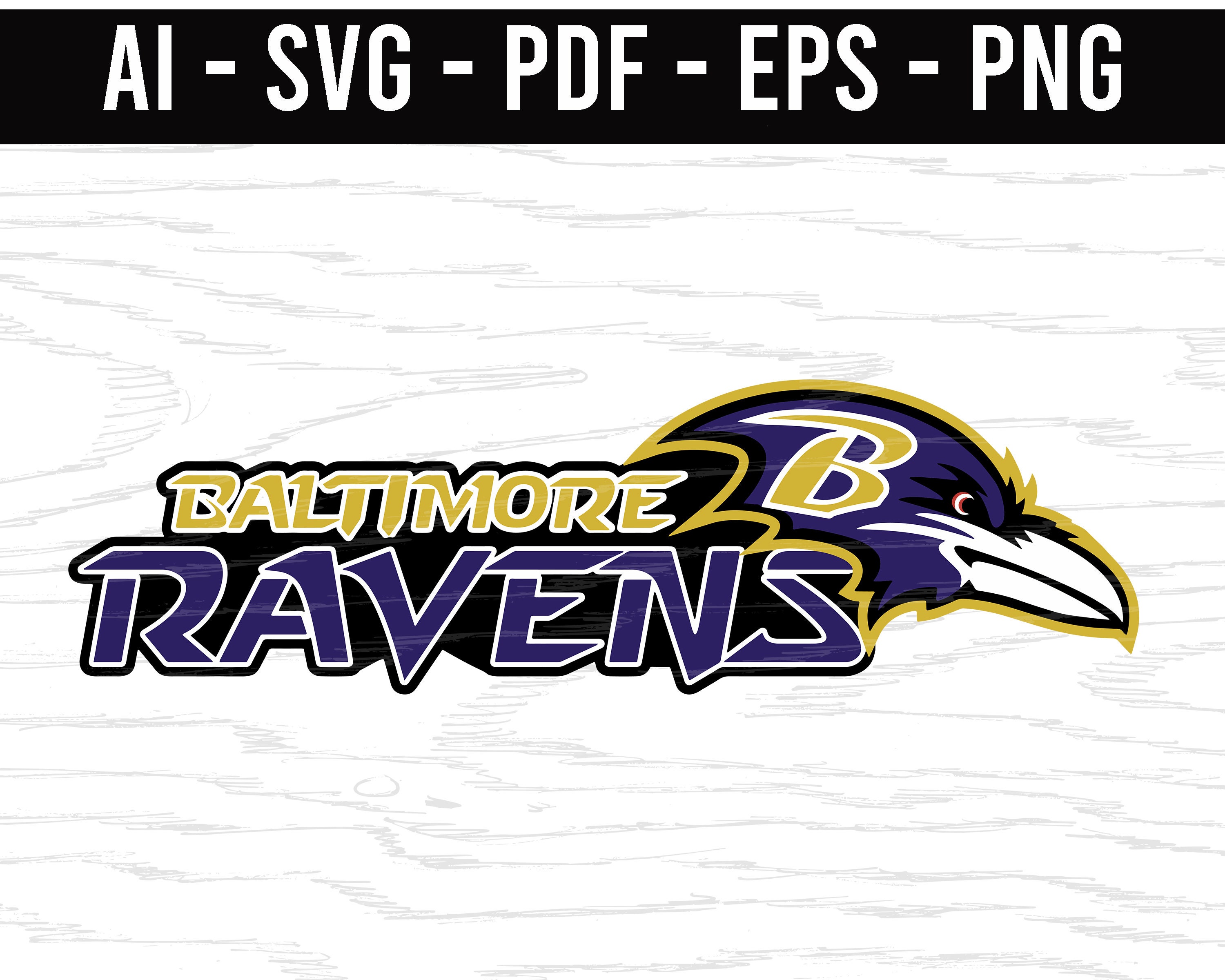
Baltimore Ravens Font
Baltimore Ravens Font - Letterforms look like they are derived from matrix ii wide, made bolder and with a unique serif pasted on the top. ️ customize your own preview on ffonts.net to make. View sample text, character map, user rating. Every font is free to download! The nfl ravens font contains 66 beautifully designed characters. Click to find the best 19 free fonts in the nfl style. It screams attitude and character. Dec 05, 2016 at 10:54. The typography in the logo isn’t just letters. Download nfl ravens regular for free.
It screams attitude and character. View sample text, character map, user rating. The nfl ravens font contains 66 beautifully designed characters. Letterforms look like they are derived from matrix ii wide, made bolder and with a unique serif pasted on the top. Web looking for nfl fonts? Web winco bold italic commercial fonts. The typography in the logo isn’t just letters. Every font is free to download! Dec 05, 2016 at 10:54. Download nfl ravens regular for free.
The typography in the logo isn’t just letters. Web looking for nfl fonts? Download nfl ravens regular for free. 1 style uncategorized 11 downloads. Web winco bold italic commercial fonts. Letterforms look like they are derived from matrix ii wide, made bolder and with a unique serif pasted on the top. The nfl ravens font contains 66 beautifully designed characters. It screams attitude and character. Web the font used in the baltimore ravens logo. Every font is free to download!
1 style uncategorized 11 downloads. It screams attitude and character. Dec 05, 2016 at 10:54. View sample text, character map, user rating. Web looking for nfl fonts?
View sample text, character map, user rating. 1 style uncategorized 11 downloads. The typography in the logo isn’t just letters. It screams attitude and character. Web winco bold italic commercial fonts.
1 style uncategorized 11 downloads. The typography in the logo isn’t just letters. Web winco bold italic commercial fonts. It screams attitude and character. Web the font used in the baltimore ravens logo.
The nfl ravens font contains 66 beautifully designed characters. Click to find the best 19 free fonts in the nfl style. Letterforms look like they are derived from matrix ii wide, made bolder and with a unique serif pasted on the top. ️ customize your own preview on ffonts.net to make. Every font is free to download!
1 style uncategorized 11 downloads. It screams attitude and character. View sample text, character map, user rating. Web winco bold italic commercial fonts. Click to find the best 19 free fonts in the nfl style.
View sample text, character map, user rating. 1 style uncategorized 11 downloads. Web winco bold italic commercial fonts. Letterforms look like they are derived from matrix ii wide, made bolder and with a unique serif pasted on the top. The nfl ravens font contains 66 beautifully designed characters.
It screams attitude and character. Download nfl ravens regular for free. Web winco bold italic commercial fonts. Click to find the best 19 free fonts in the nfl style. Dec 05, 2016 at 10:54.
Baltimore Ravens Font
Click to find the best 19 free fonts in the nfl style. Dec 05, 2016 at 10:54. It screams attitude and character. Web winco bold italic commercial fonts. The typography in the logo isn’t just letters.
Baltimore Ravens Font
1 style uncategorized 11 downloads. Web looking for nfl fonts? Letterforms look like they are derived from matrix ii wide, made bolder and with a unique serif pasted on the top. It screams attitude and character. Click to find the best 19 free fonts in the nfl style.
Letterforms Look Like They Are Derived From Matrix Ii Wide, Made Bolder And With A Unique Serif Pasted On The Top.
1 style uncategorized 11 downloads. Every font is free to download! The nfl ravens font contains 66 beautifully designed characters. Click to find the best 19 free fonts in the nfl style.
Web winco bold italic commercial fonts. ️ customize your own preview on ffonts.net to make. View sample text, character map, user rating. Web the font used in the baltimore ravens logo.
It screams attitude and character. The typography in the logo isn’t just letters. Web looking for nfl fonts?